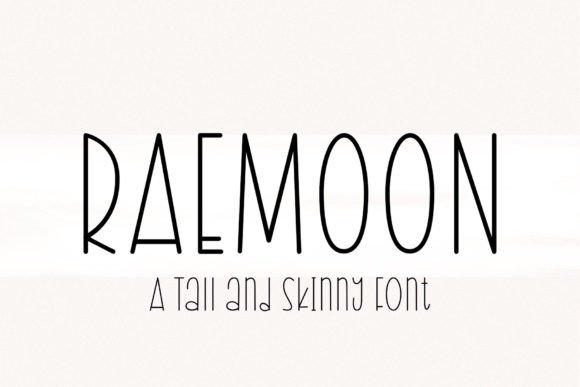
Introducing Raemoon Font, the ultimate choice for those seeking the best font for stockings, cricut, and more! Created by jimtypestudio, this display font is here to elevate your creative projects to new heights.
With its tall and skinny design, Raemoon Font adds a touch of elegance and sophistication to any text or signage. Whether you're designing signs for your business or creating personalized stockings, this font is guaranteed to catch the eye and leave a lasting impression.
Searching for a font that complements your chic farmhouse decor? Look no further! Raemoon Font is the perfect choice to enhance the rustic charm of your home. Its simplicity and versatility make it a go-to option for various applications, from home decor accents to heartfelt greeting cards.
But that's not all – Raemoon Font goes beyond just aesthetics. It evokes emotions and creates a sense of warmth and coziness. Imagine the joy of receiving a personalized stocking with beautifully crafted lettering, or the delight of sending heartfelt messages with this captivating font. It adds that extra touch of love and thoughtfulness to every design.
Crafted with meticulous attention to detail, Raemoon Font ensures seamless readability, making your words effortlessly legible. Its clean lines and precise spacing guarantee a professional and polished finish, whether you're designing for print or web.
Embrace the power of Raemoon Font and let your creativity soar. It's time to captivate your audience, leave a lasting impression, and turn your creative visions into reality.